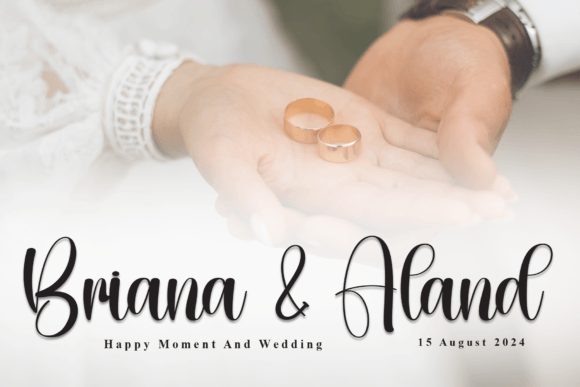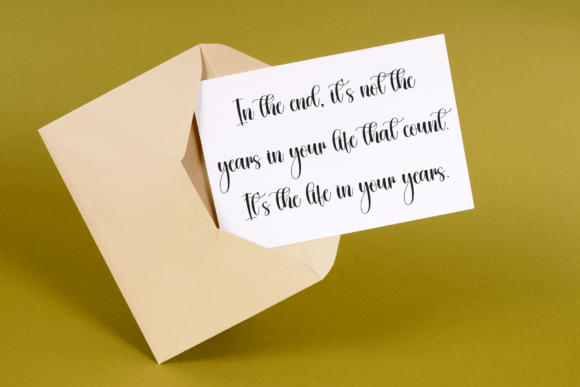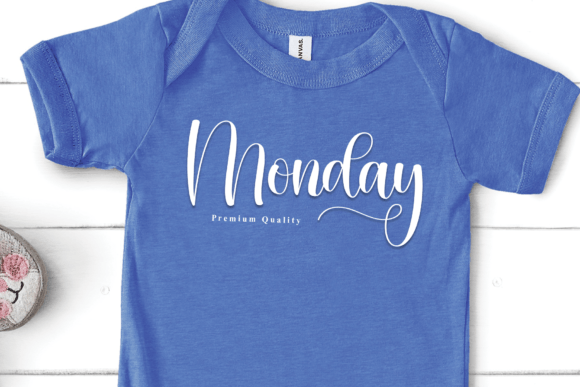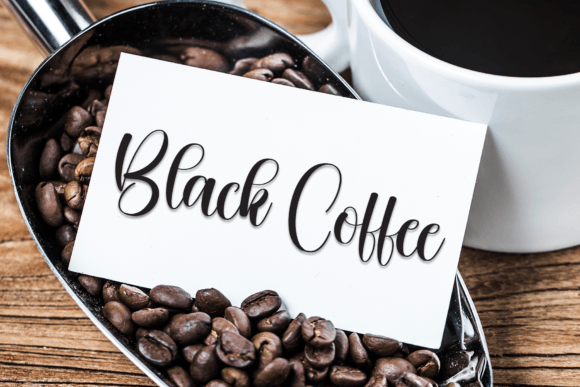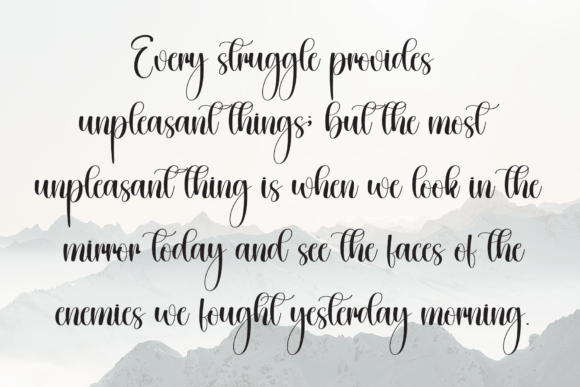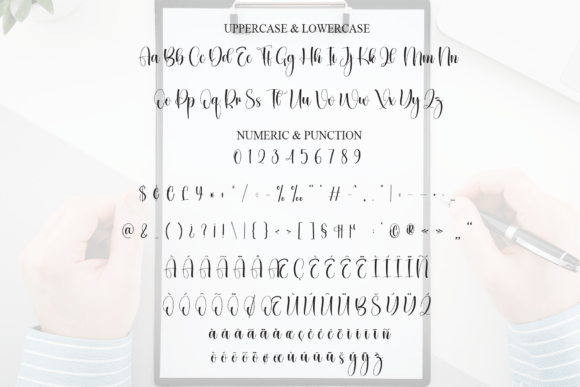
Introduction to Listing Font
Listing Font features a charming blend of bold and thin handmade letters, perfect for adding a unique touch to your designs.
Key Features of Listing Font